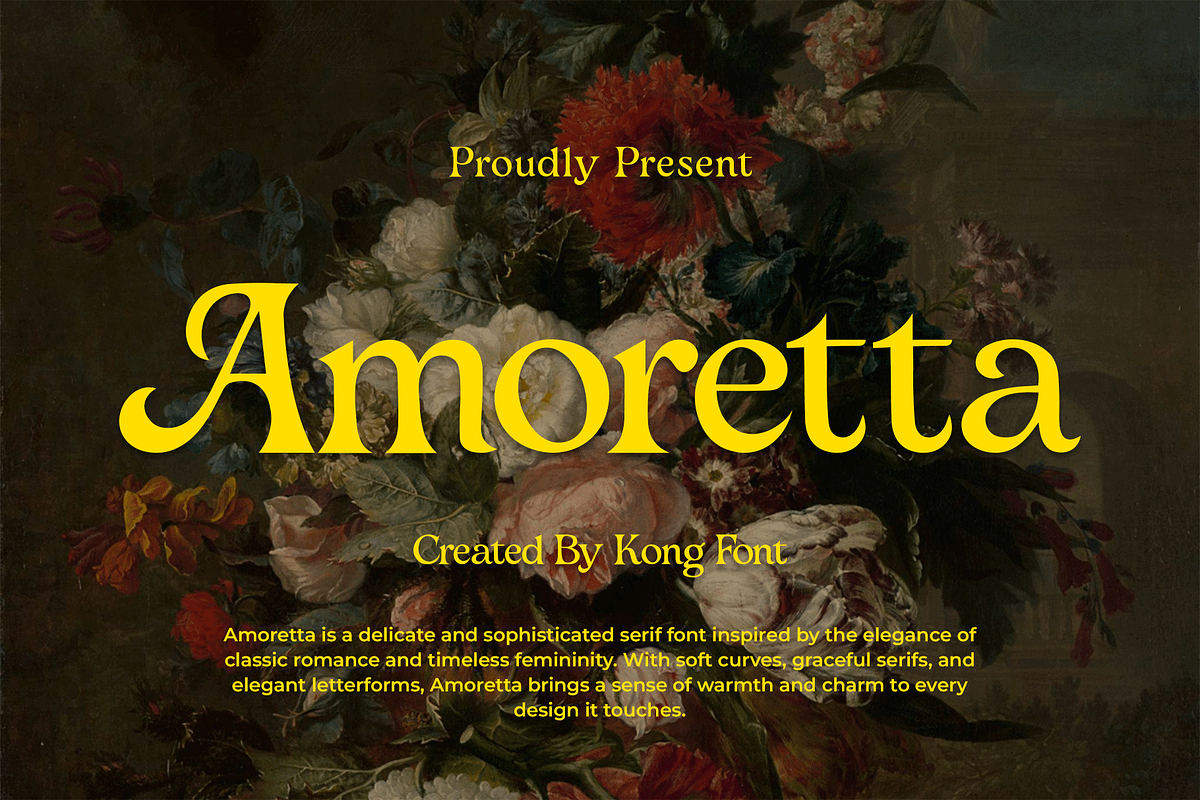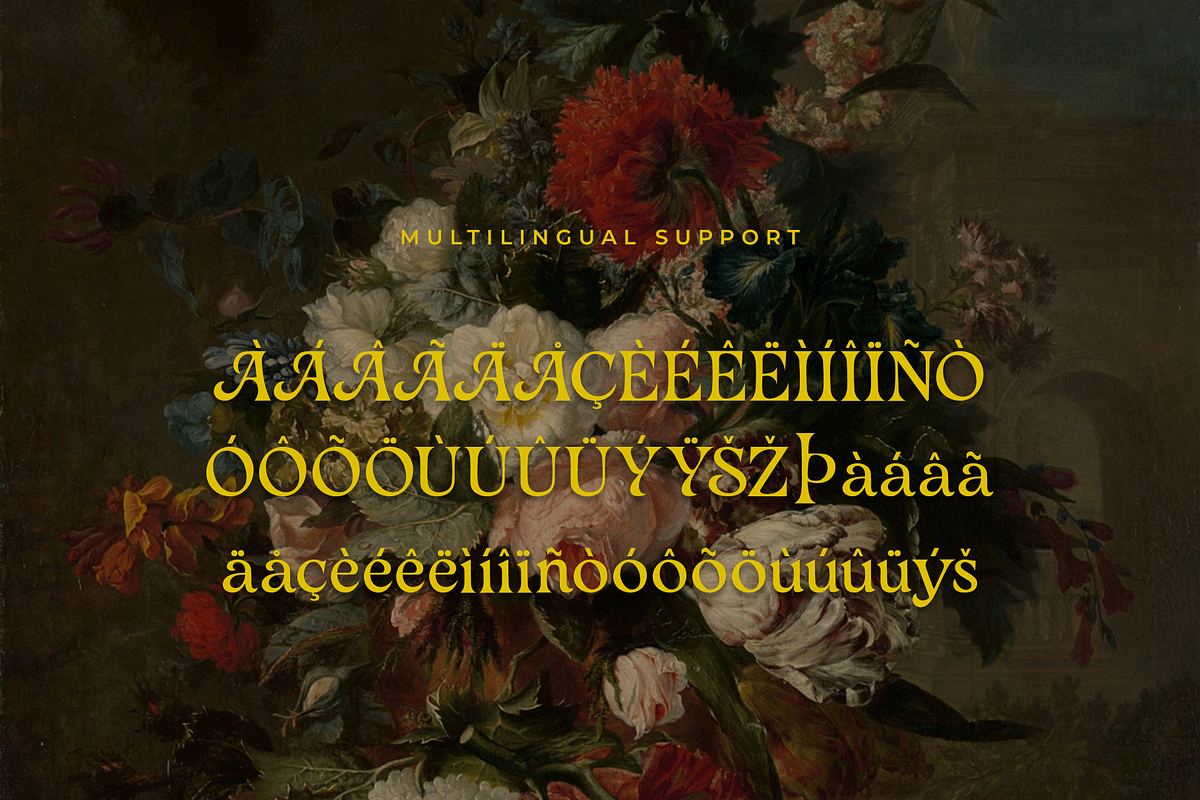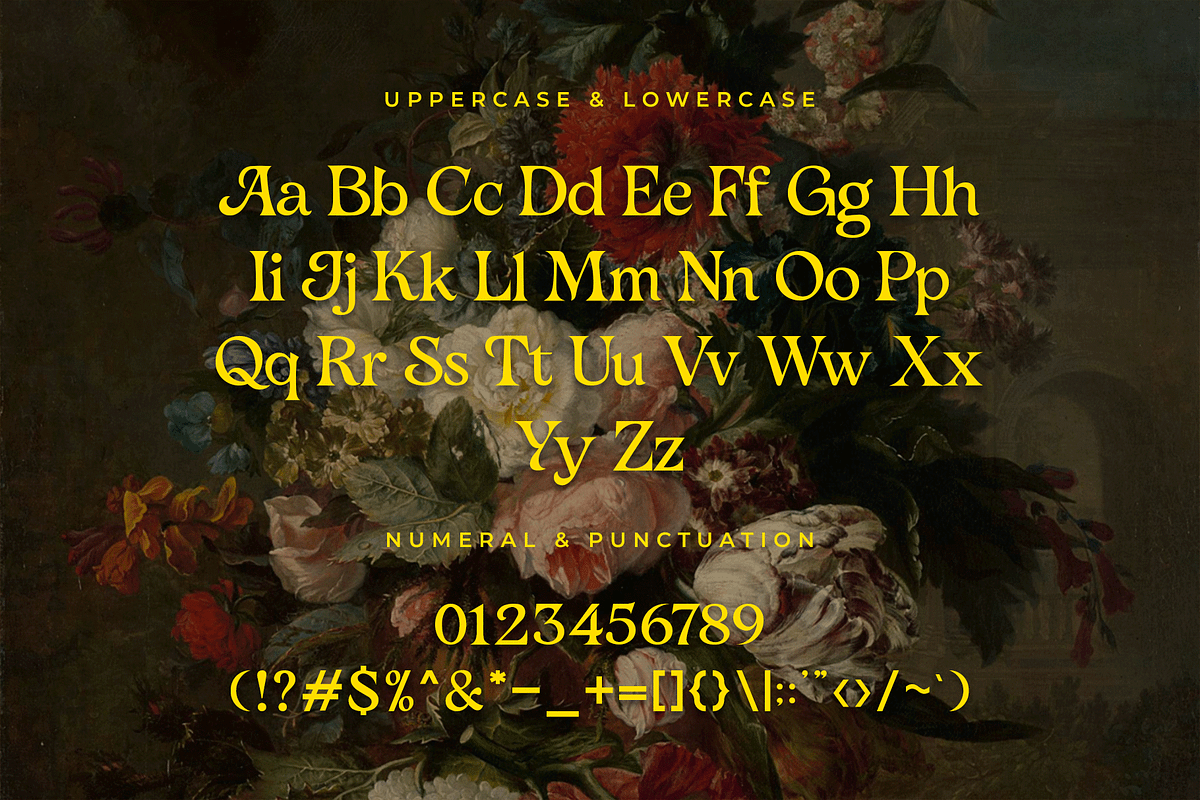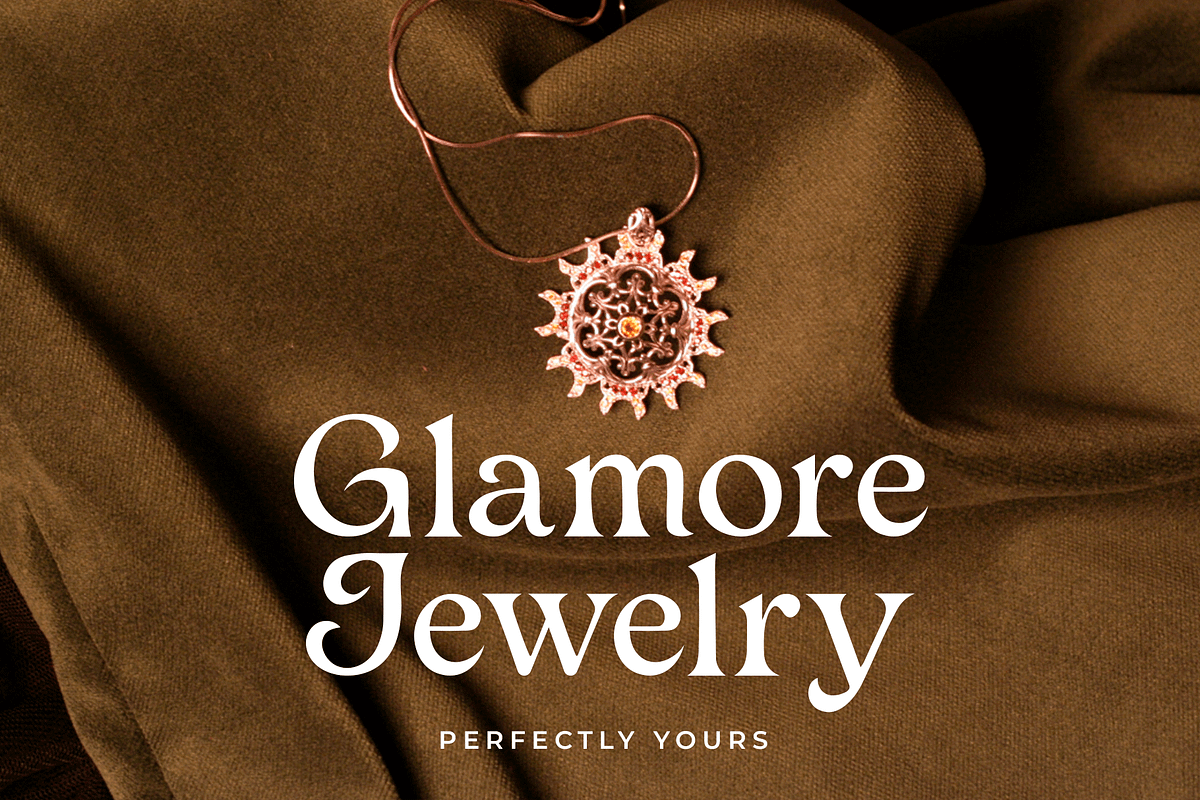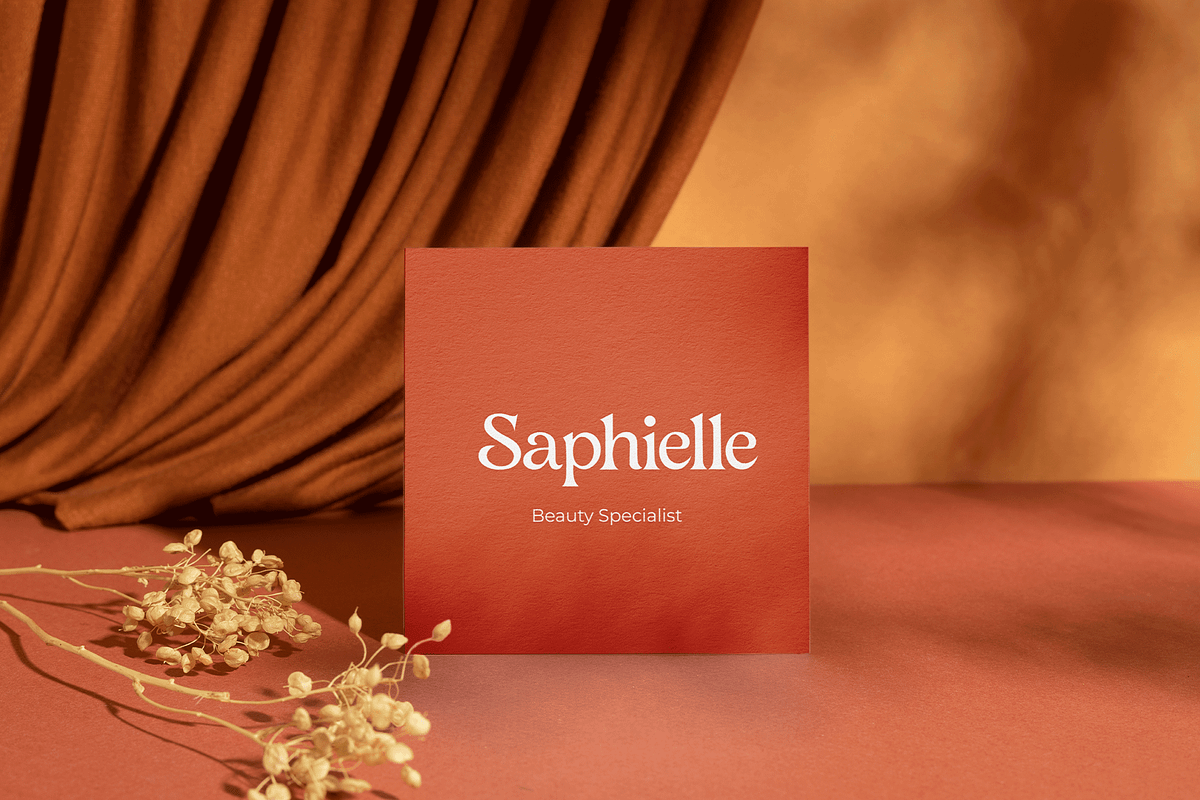
Amoretta – A Timeless Elegant Serif
Amoretta – A Timeless Elegant Serif Font
Amoretta is a refined serif font that radiates timeless elegance and charm. With its delicate curves, high-contrast strokes, and balanced letterforms, Amoretta is designed to elevate your projects with sophistication and grace.
Perfect for high-end branding, wedding invitations, editorial layouts, logos, and packaging, Amoretta delivers a classic yet modern aesthetic that stands out. The font supports multilingual characters, punctuation, and features stylish alternates, making it versatile for both professional and creative use.
Whether you're crafting a romantic invitation or a luxurious brand identity, Amoretta adds a touch of elegance that leaves a lasting impression.